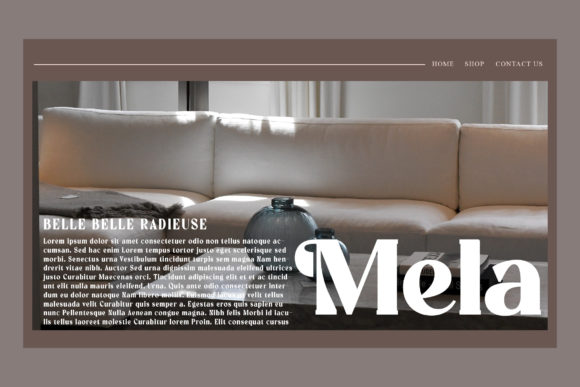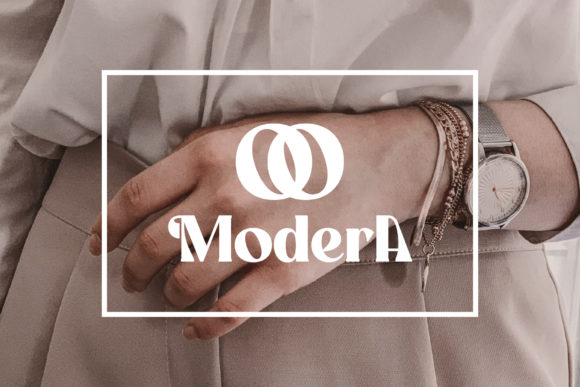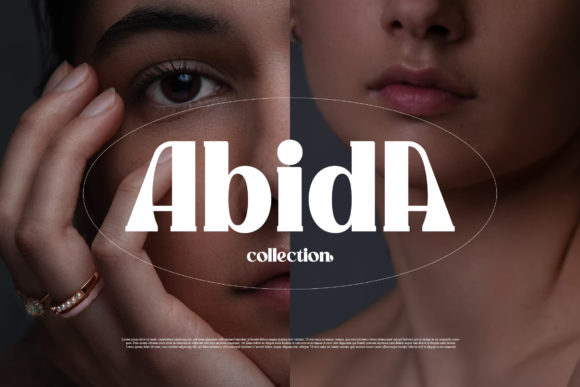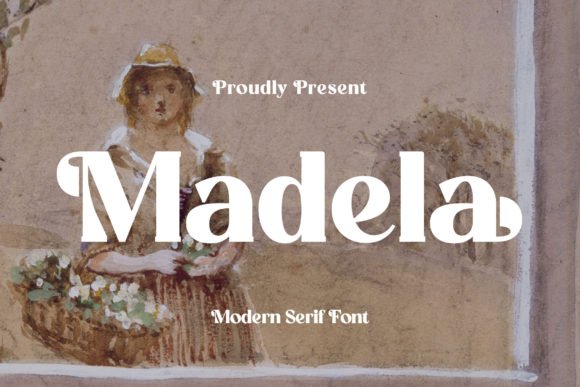
Introduction to Madela Font
Madela is a bold and thick lettered serif font.
It is PUA encoded which means you can access all of the glyphs and swashes with ease Add it confidently to your favorite creations and let yourself be amazed by the outcome generated.